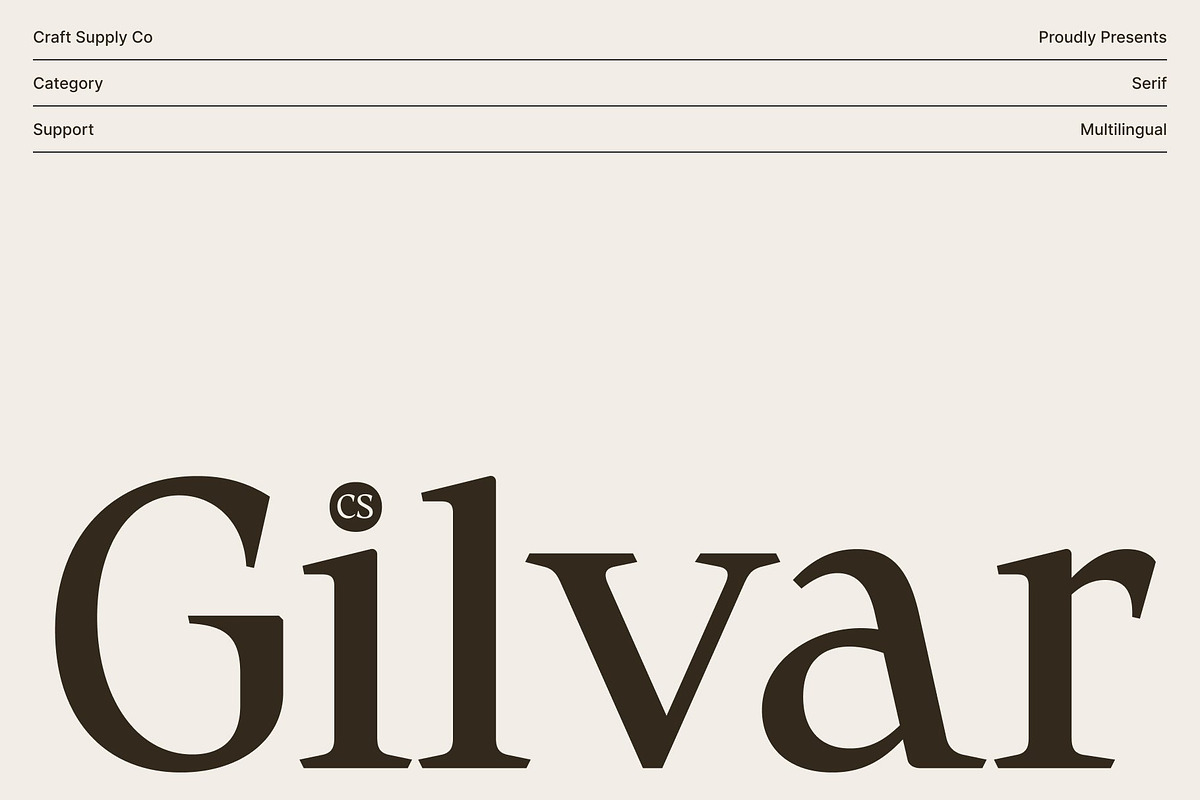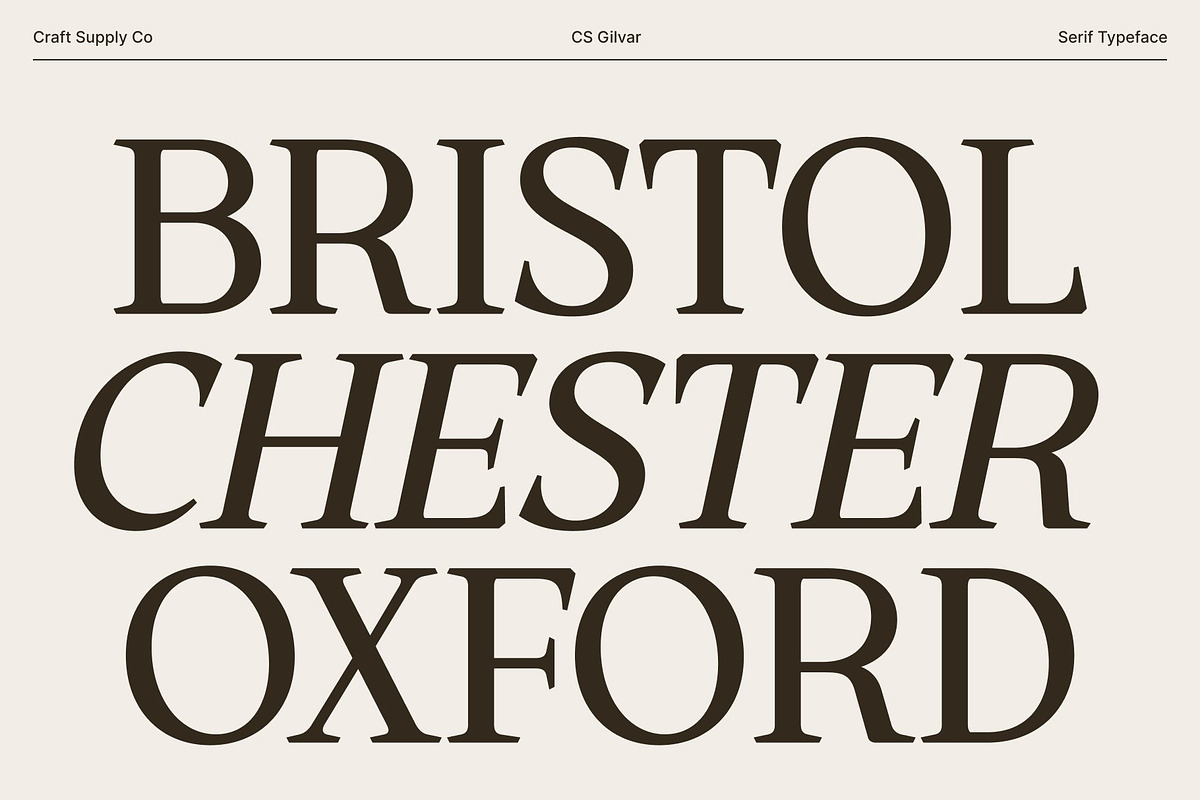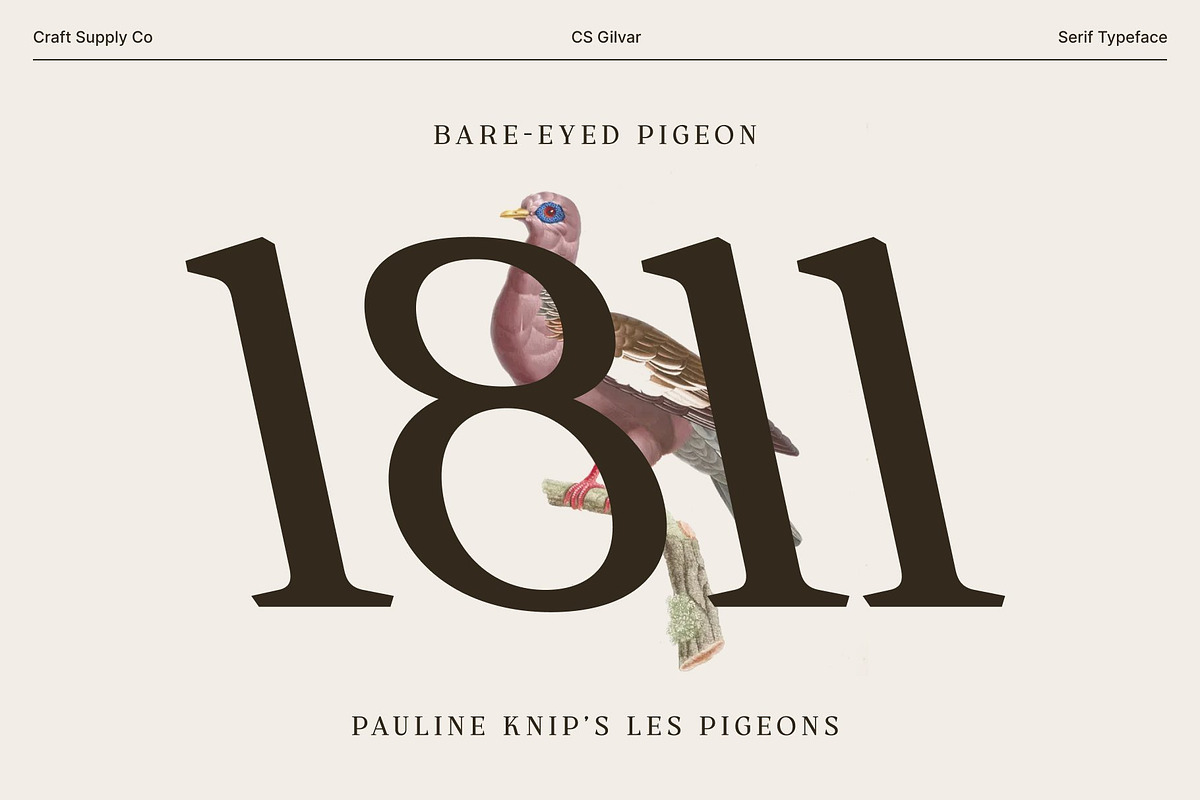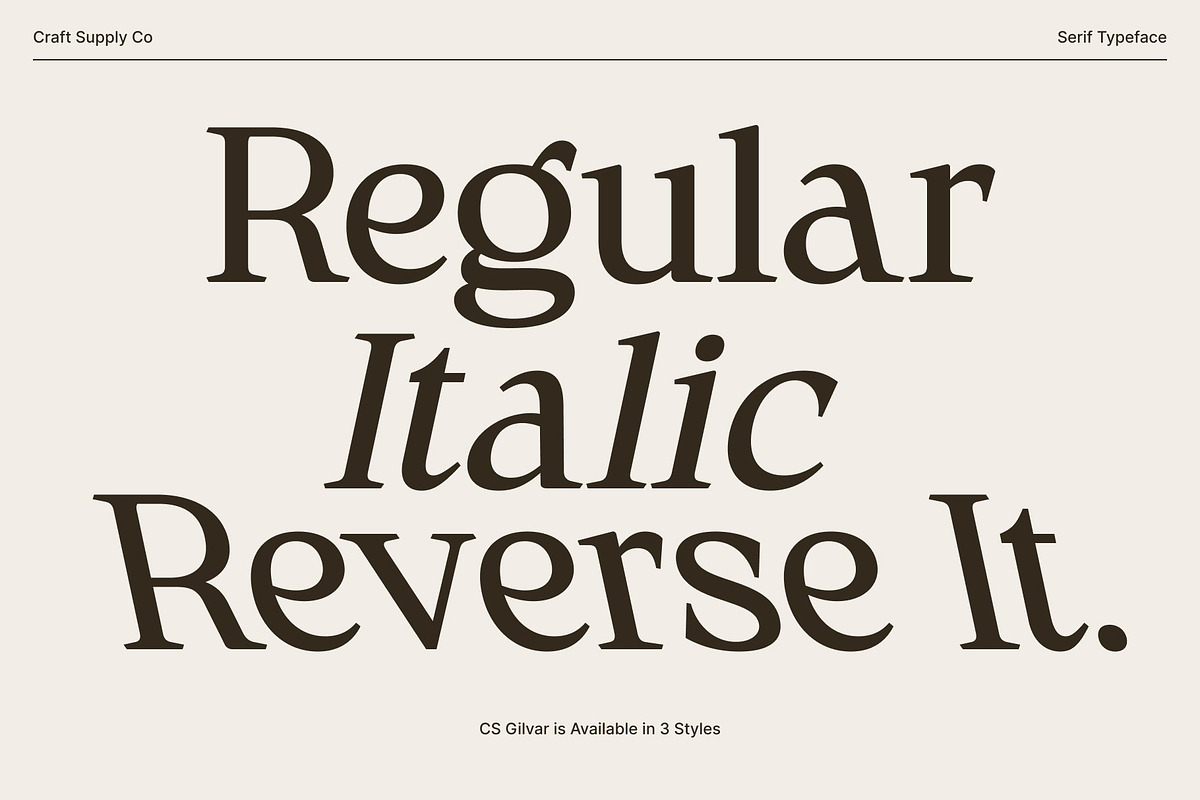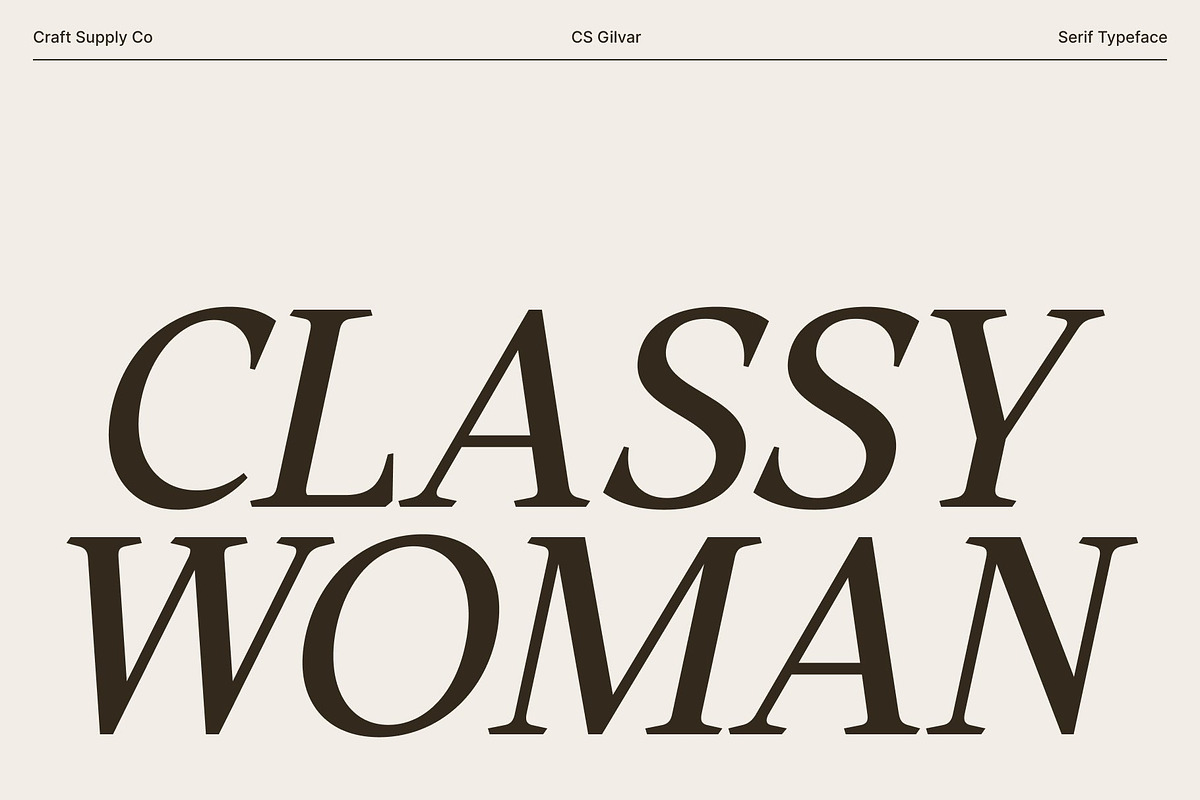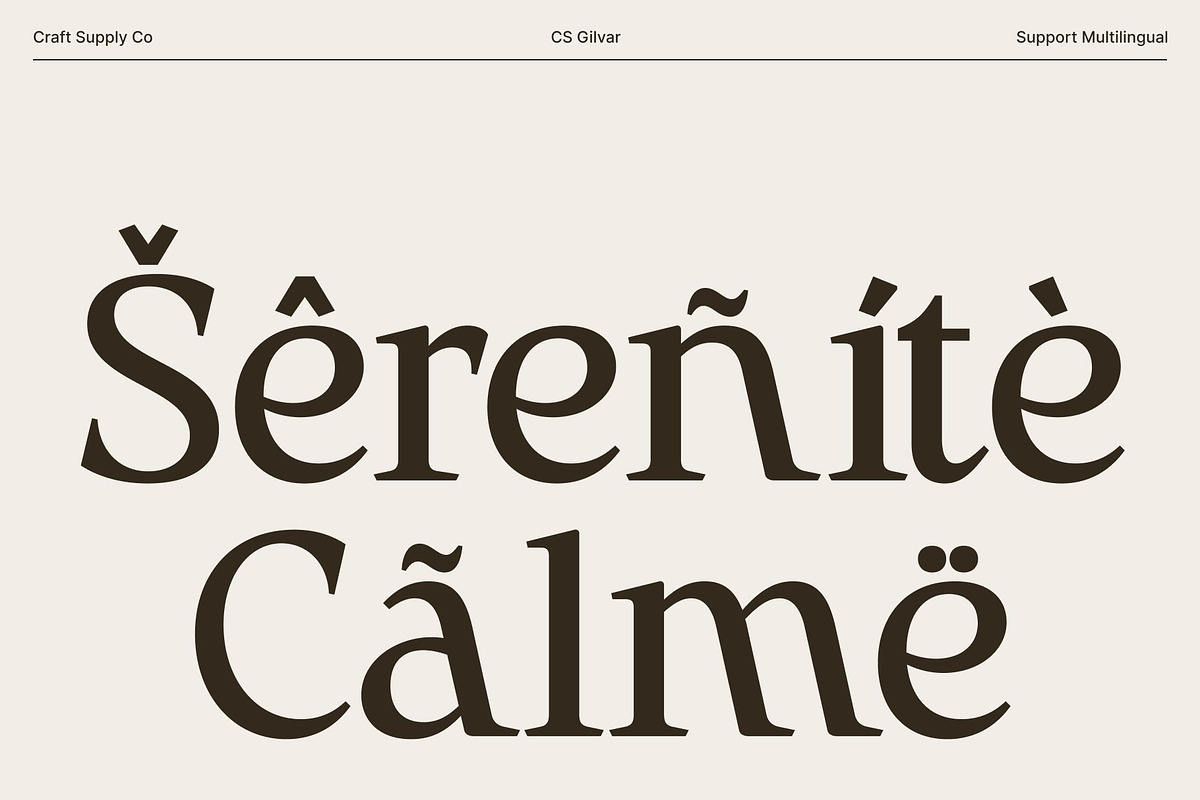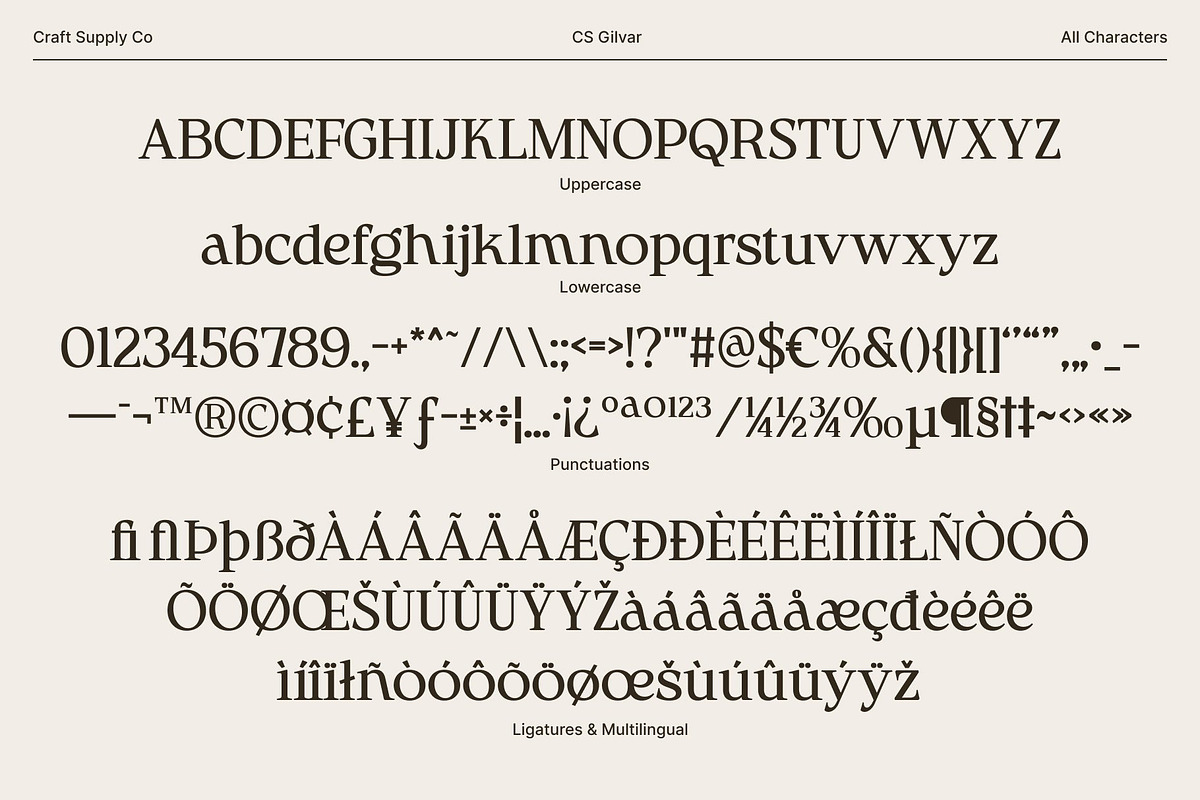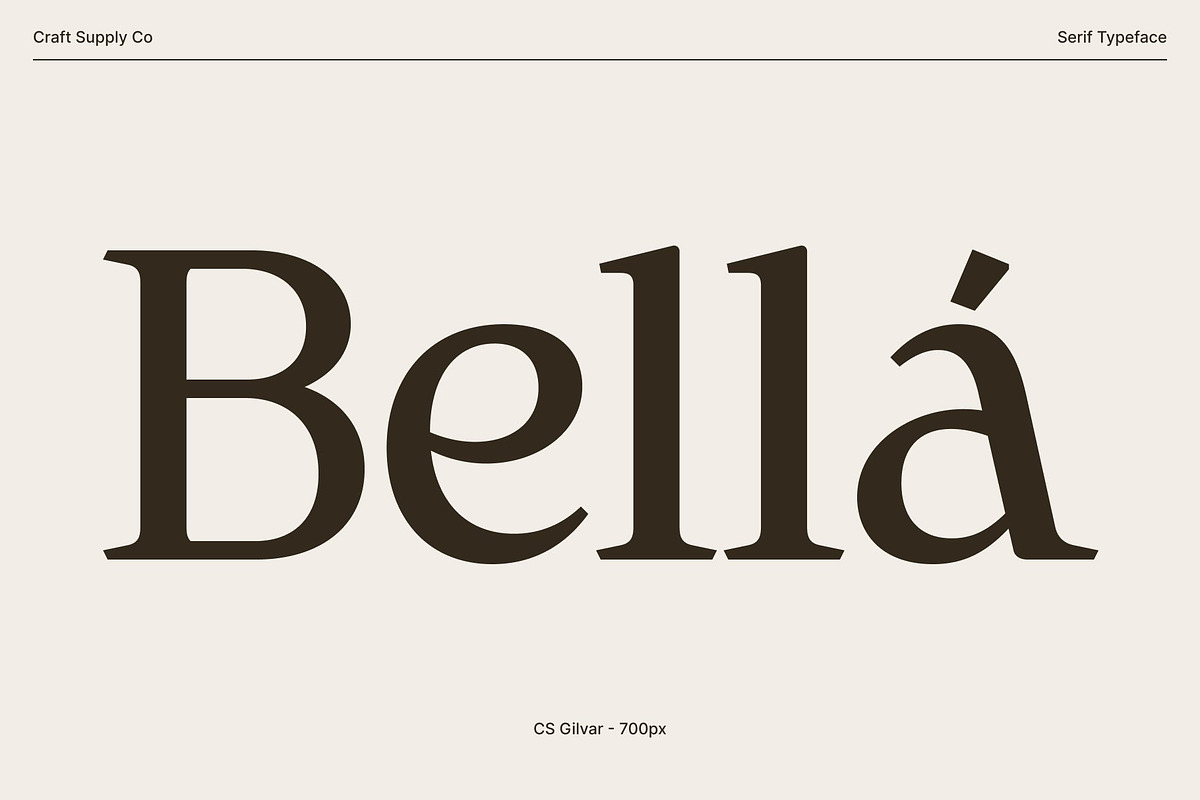
CS Gilvar – Classic Serif Font
CS Gilvar – Classic Serif with Minimal Elegance Timeless Serif Design with Stylish Simplicity This is a classic serif font crafted for designers who value elegance and clarity. Its clean, balanced letterforms communicate professionalism while maintaining a refined, minimalist aesthetic. This makes it ideal for projects that require sophistication without unnecessary embellishments. Clean and Professional Letterforms The font’s carefully structured serifs and proportional shapes enhance readability while projecting confidence and authority. Each character is designed to appear crisp and harmonious, making this font perfect for long-form text, editorial layouts, or any design where clarity is paramount. Elegant Minimalism for Refined Visuals This font combines simplicity with style, offering subtle details that add refinement without overwhelming the design. Its minimalist approach ensures versatility, allowing it to complement a wide range of creative projects while maintaining a polished, high-end feel. Perfect for Editorials, Branding, and Creative Projects Whether used in sophisticated editorial spreads, professional branding, or modern creative applications, this font delivers a timeless, stylish presence. Its combination of clean lines, classic serif elegance, and understated professionalism ensures that your designs look both refined and contemporary. * Download Type Speciment: * --- What you get : - CS Gilvar Regular - CS Gilvar Italic - CS Gilvar Reverse Italic Features : - Uppercase and lowercase characters - Numerals and Punctuation (OpenType Standard) - Accents (Supports Multilingual Characters) - PUA Encoding --- You can use this typeface without needing any specialized software.* --- If you have any inquiries or need assistance, please feel free to contact us. We appreciate your support in enhancing your creative projects! Best regards, Craft Supply Co.